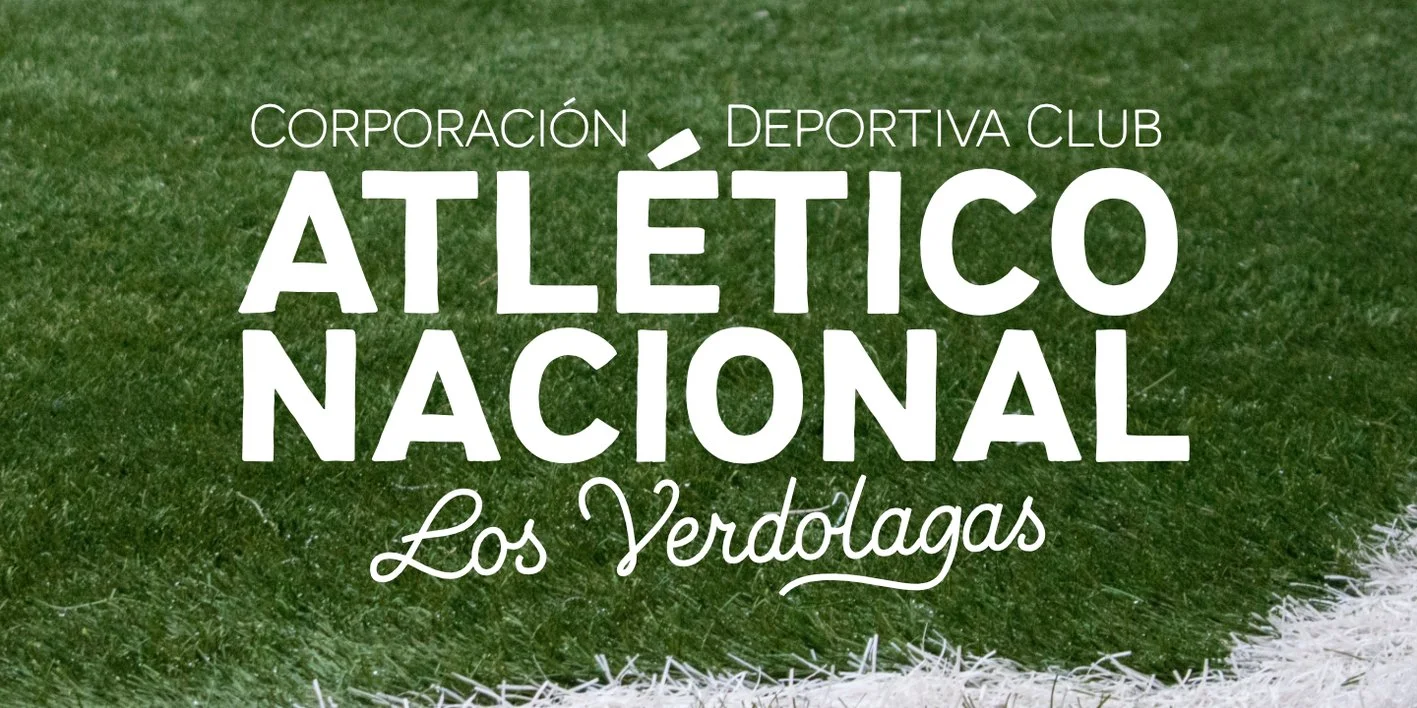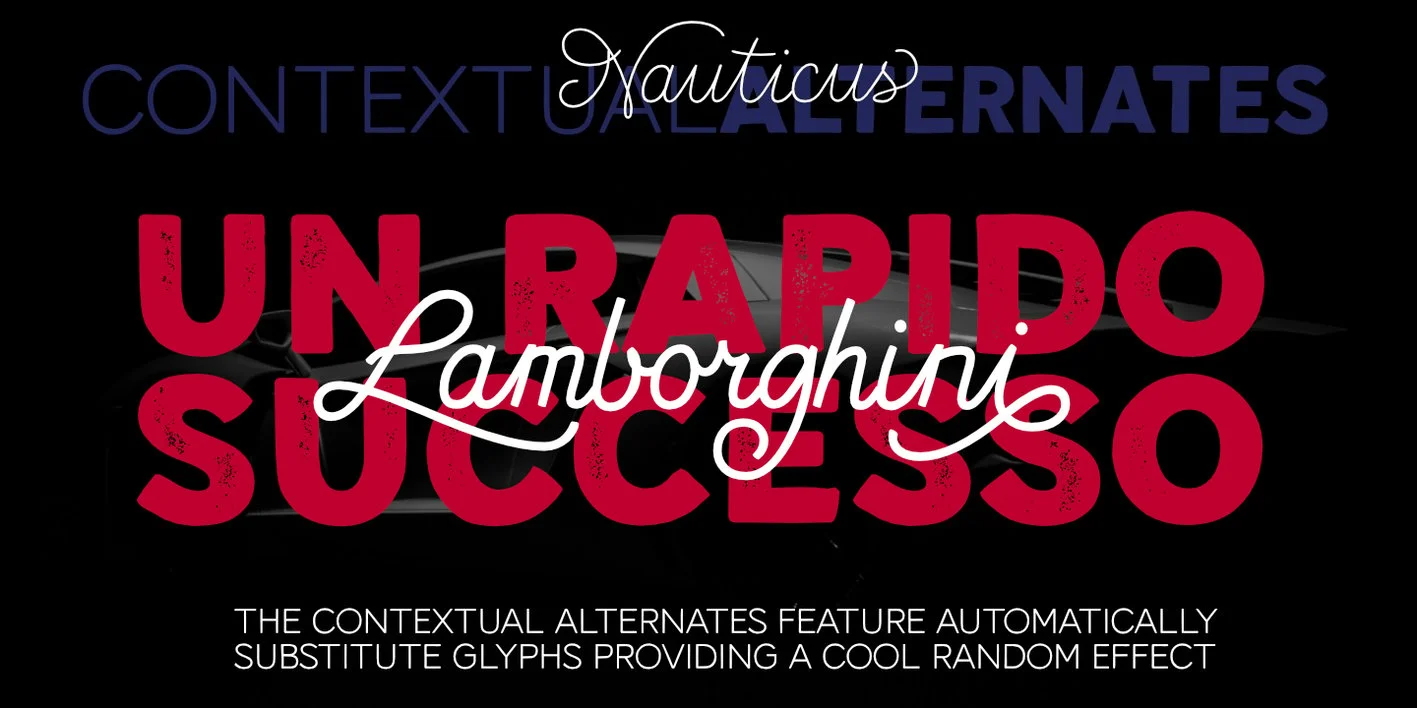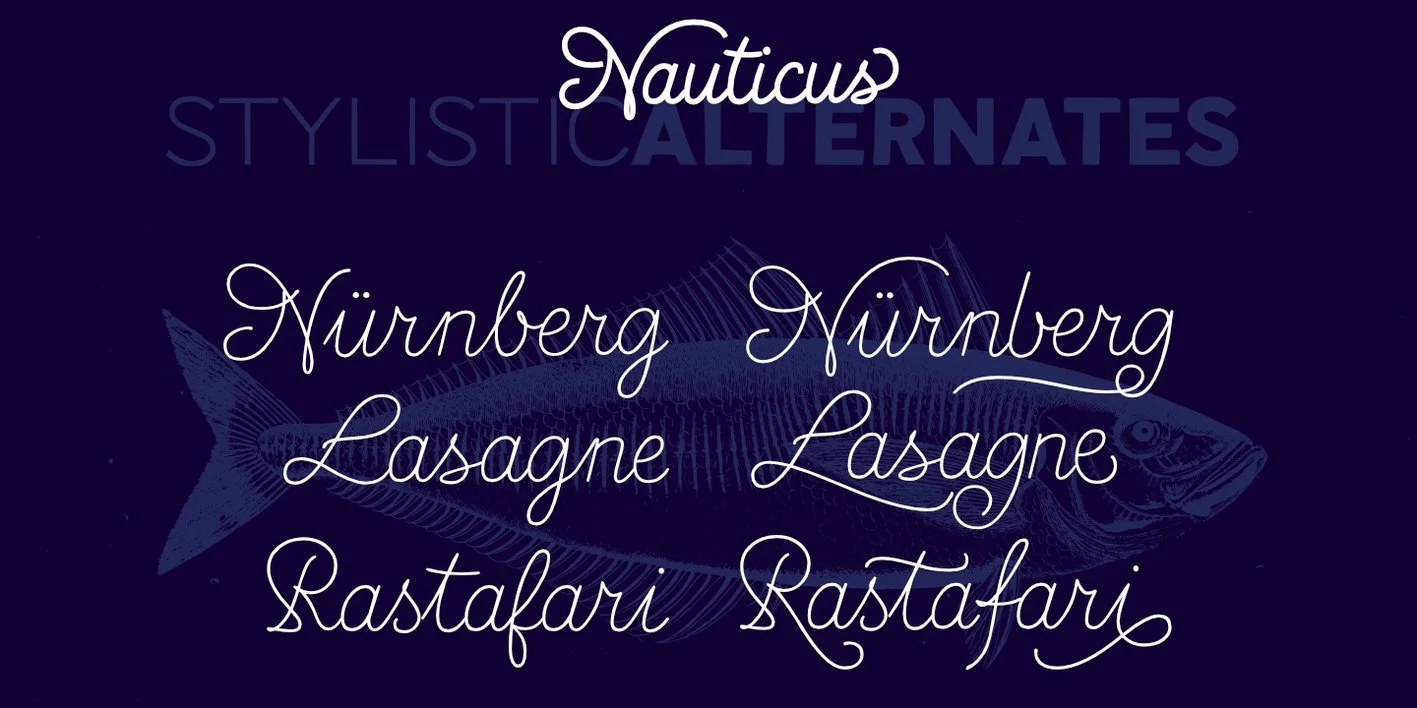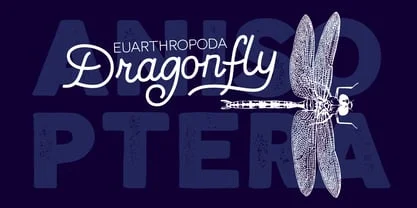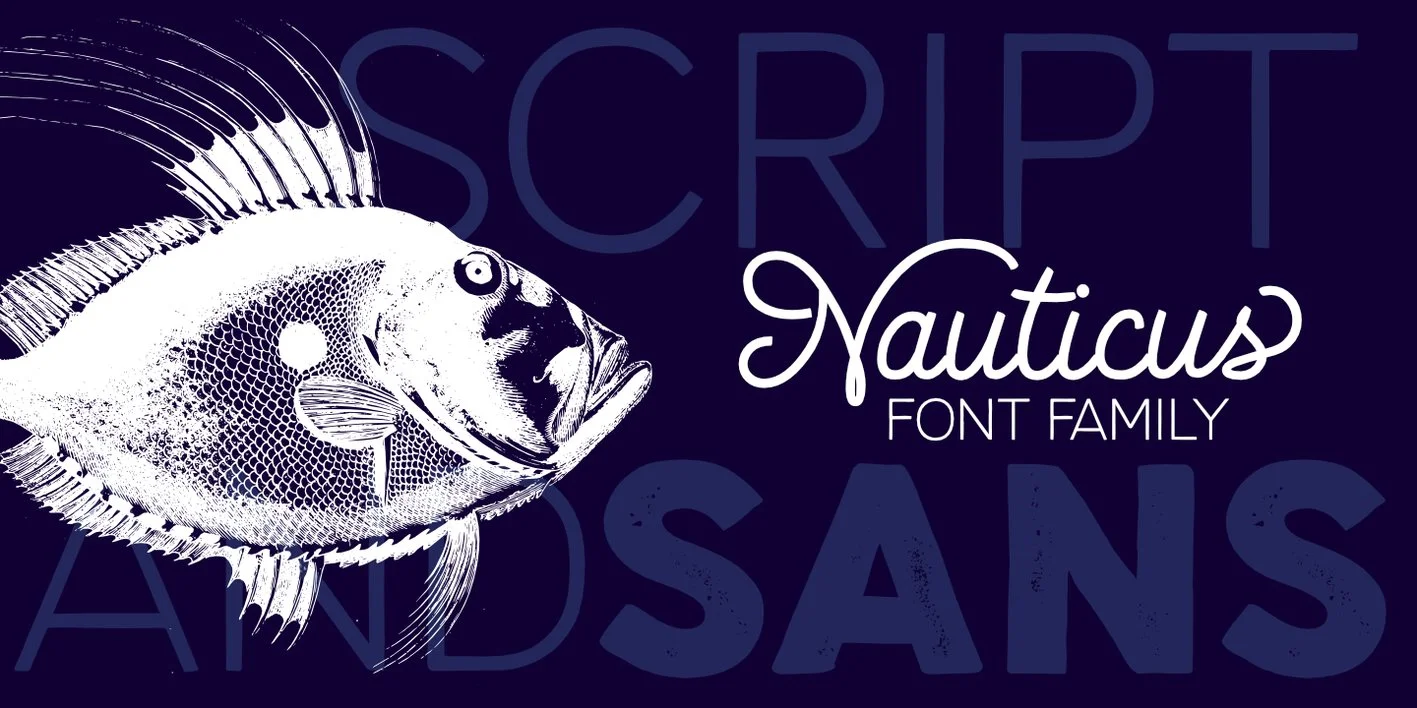
Nauticus Font
A good typeface communicates tone before a single word is read. Nauticus achieves this through refined proportions and careful stroke modulation. The typeface brings a versatile sensibility to a broad range of creative disciplines, with controlled contrast that rewards close inspection that holds up whether the work is print-first or screen-first.
In practice, Nauticus proves particularly effective for logo design, social media graphics, editorial layouts, environmental graphics, web design. Designers reaching for it find that the type decisions feel resolved rather than laboured — a useful quality when client timelines are tight.
The range of applications extends to signage systems, advertising campaigns, product labels, packaging design. That breadth is deliberate: the proportions and spacing were stress-tested across a wide range of mock briefs before the typeface was finalised.
Art directors commissioning type-led campaigns find Nauticus a reliable choice for projects that demand both personality and restraint. The design avoids the self-conscious quirkiness that dates quickly, settling instead for considered distinctiveness that holds up over time.